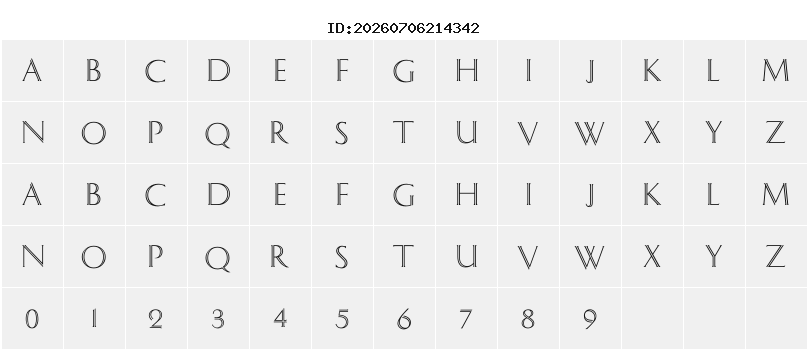
DelphianC Preview
• Font Name: DelphianC
• Full Font Name: DelphianC
About DelphianC.ttf
DelphianC.ttf is a modern, elegant sans-serif font designed for ultimate readability and visual harmony. Perfect for branding, headlines, web design, and print materials.